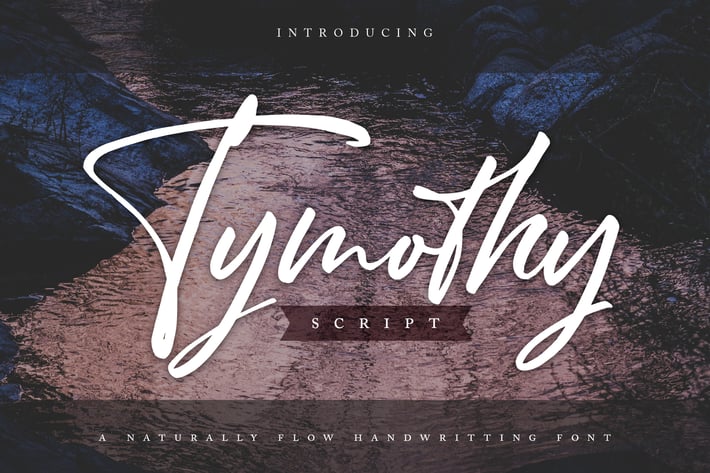
Thymoty | A Naturally Flow Handwriting Font
Thymoty | A Naturally Flow Handwriting Font with a calligraphy style, So beautiful on invitation like greeting cards, branding materials, business cards, quotes, posters, and more!